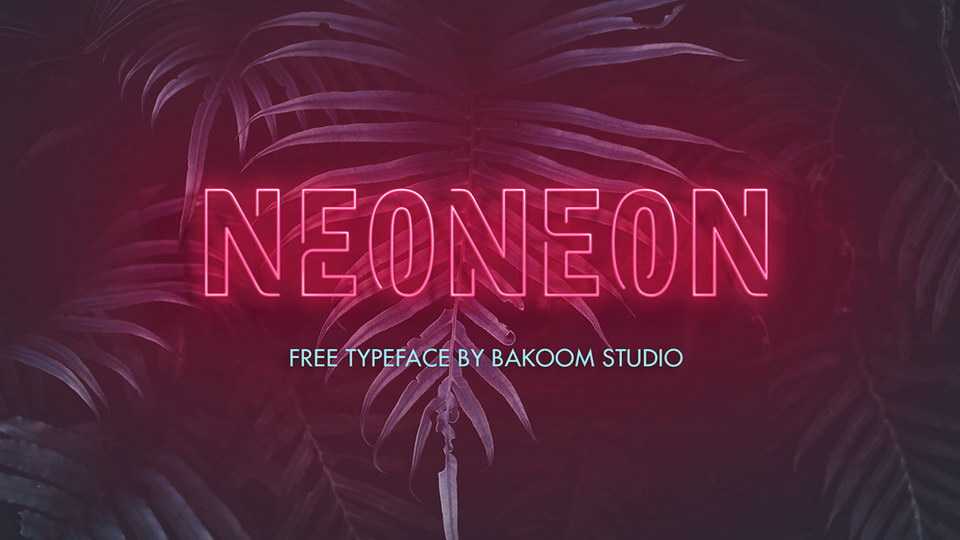
Download Neoneon font, a display typeface reproducing the 80’s style of neon signage. Neoneon font could work perfectly to create headlines, covers, advertisements and graphic posters.